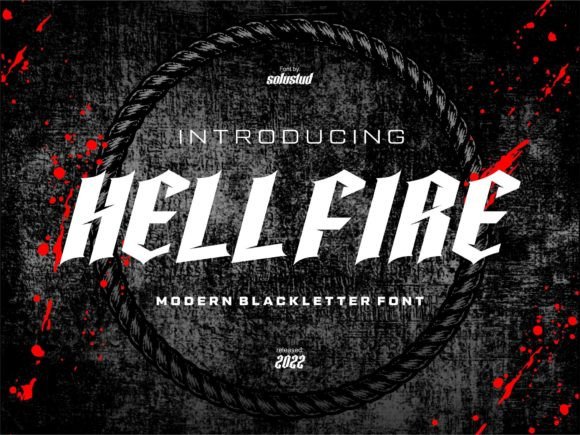
Dive into the depths of Hellfire Font, a modern black letter font that will ignite your designs with its audacious and distinctive swift cut. Unleash your creativity and transform ordinary into extraordinary as this font stands ready to elevate your projects to new heights.
Immerse yourself in the captivating allure of Hellfire, a font born from the fusion of boldness and uniqueness. Its sleek lines and sharp angles exude an air of authority and power, while its swift cut adds an exhilarating touch of dynamism and movement.
With Hellfire, you hold the key to unlocking a world of design possibilities. Picture your brand's logo radiating strength and determination, your product packaging commanding attention on shelves, or your t-shirts becoming conversation starters with their bold lettering. Unleash your imagination and let Hellfire guide you towards design excellence.
Whether you're crafting eye-catching posters, creating captivating magazines, or designing sleek product packaging, Hellfire is your steadfast companion. Its versatility knows no bounds, adapting seamlessly to a myriad of projects, each infused with a touch of boldness and uniqueness.
But Hellfire is more than just a font; it's an experience. Its very essence embodies the raw power of music, a perfect match for lyrics that ignite passion and awaken souls. Let Hellfire carry your words, amplifying their impact and leaving an unforgettable mark on your audience.
Join the ranks of design enthusiasts who have discovered the transformative power of Hellfire. Add it to your design arsenal and witness the magic unfold. Let Hellfire be the spark that ignites your creativity and sets your designs ablaze.